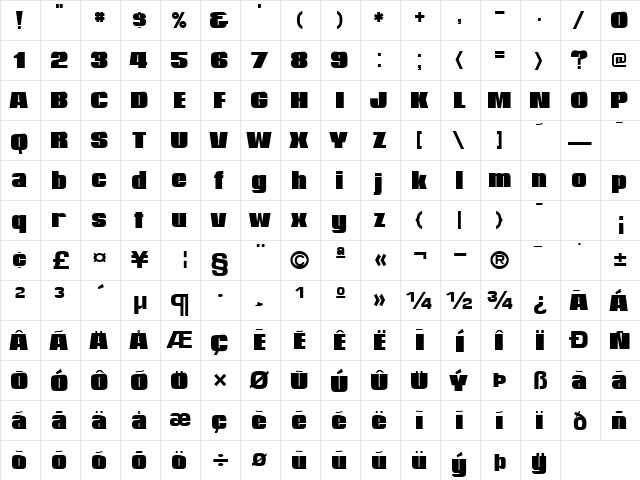
Graphic Regular Font Preview
Graphic Regular
Design Context for Graphic Typeface
Graphic is a composed and adaptable typeface that performs quietly and consistently across a wide range of design contexts.